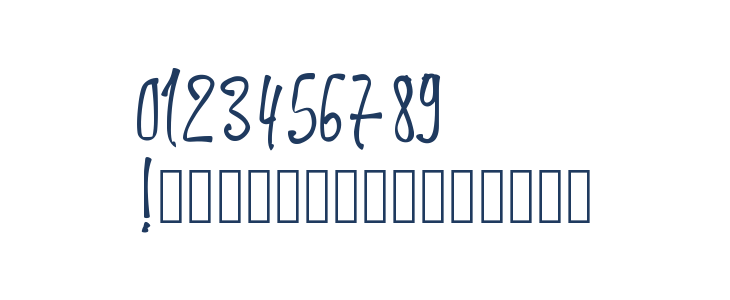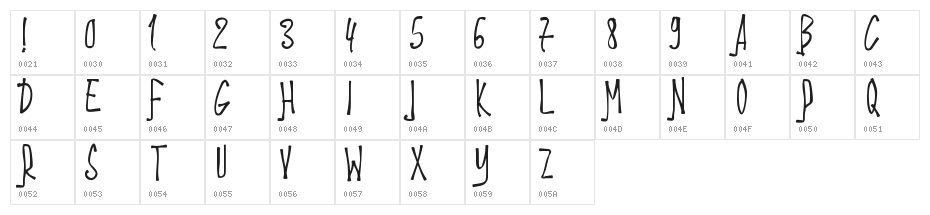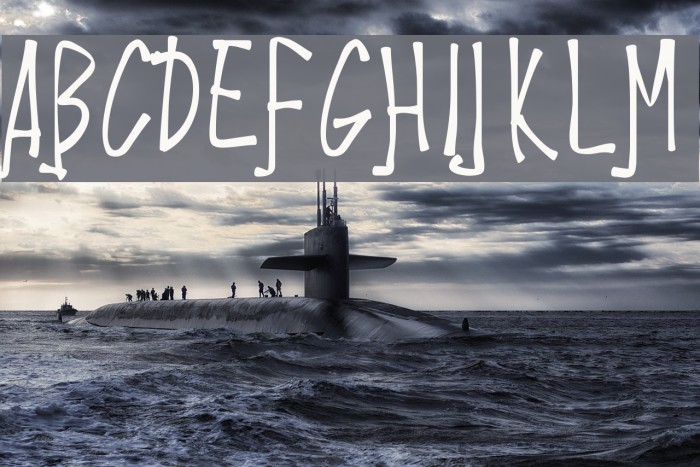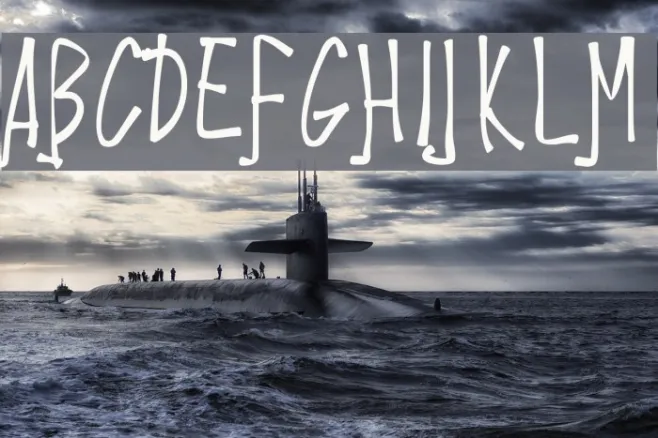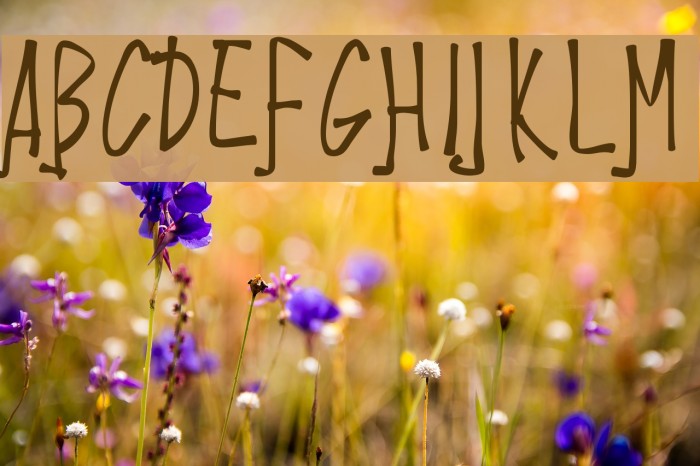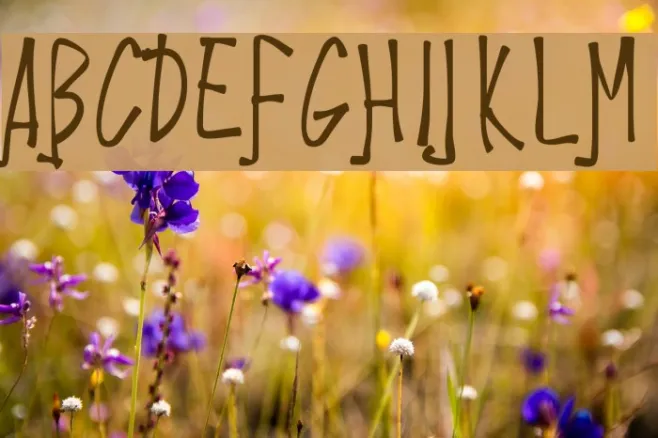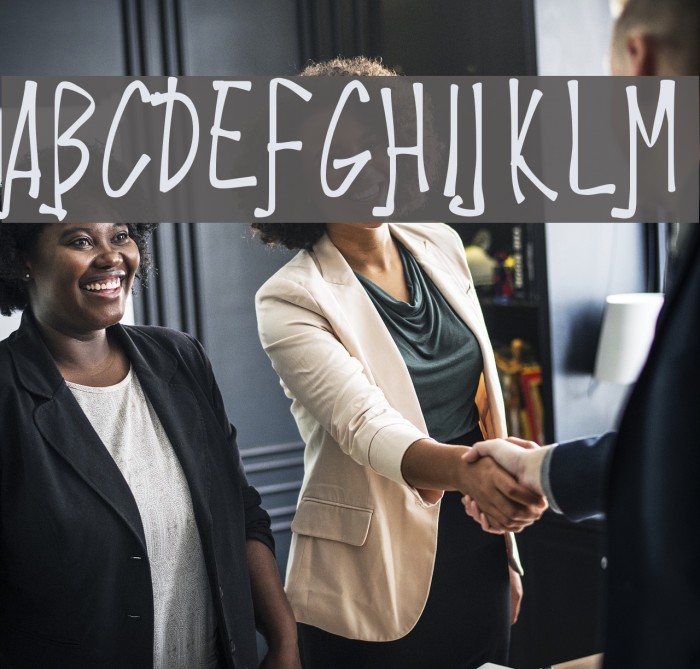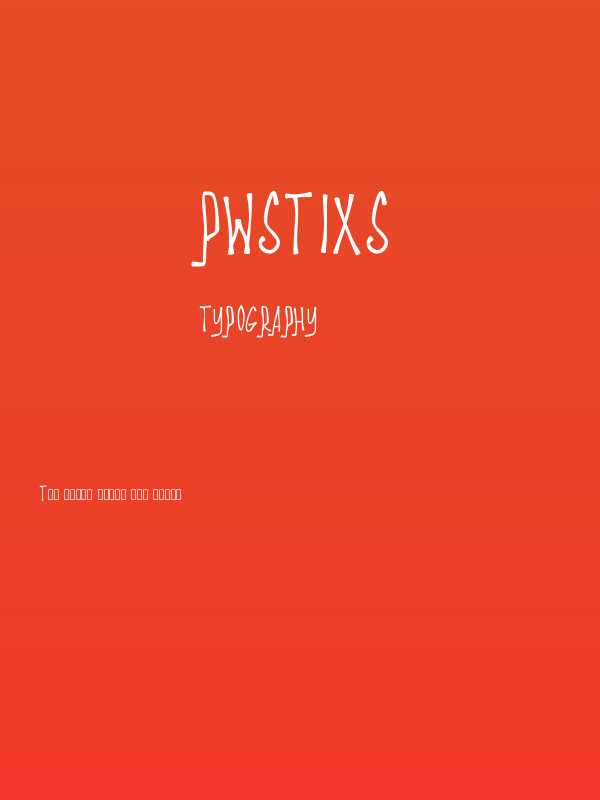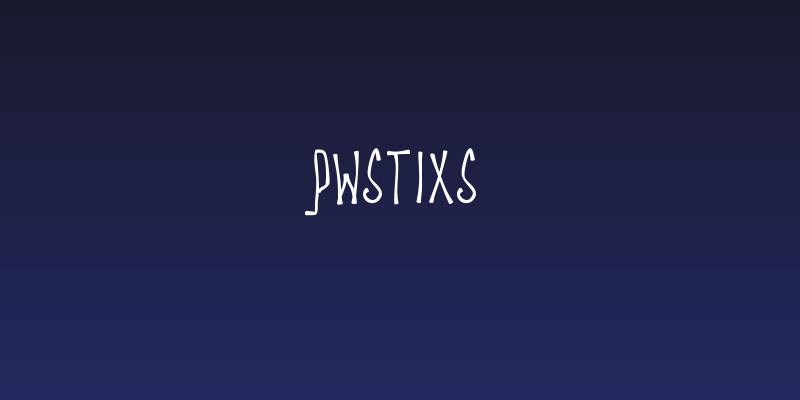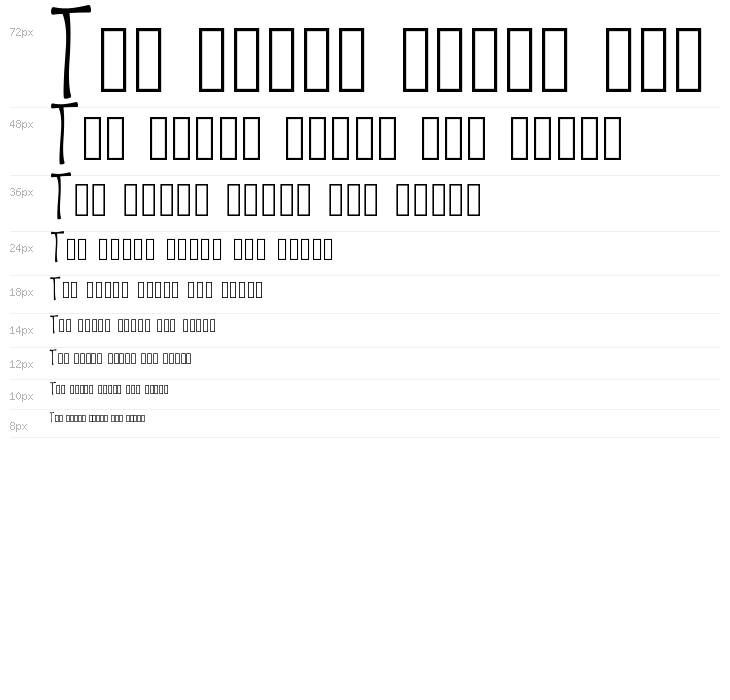
PWStixs Font
PWStixs Description
This font features a playful and casual handwritten style, characterized by its tall, narrow letters and slightly irregular strokes. The uppercase and lowercase letters maintain a consistent height, giving it a uniform appearance despite its informal design. The numbers and special characters follow the same whimsical aesthetic, making it suitable for creative and informal projects. The strokes are moderately thick, providing good readability while retaining a hand-drawn charm. This font is ideal for projects that require a personal touch, such as greeting cards, invitations, or children's book covers.
Overall StyleCasual, Playful
Use CaseHeadlines, Creative projects
Proposed ProjectsGreeting cards, invitations, children's book covers, creative posters.